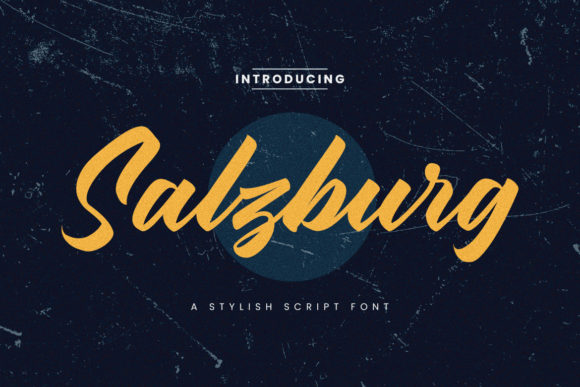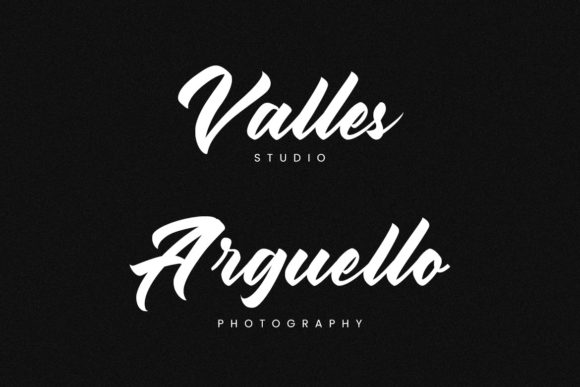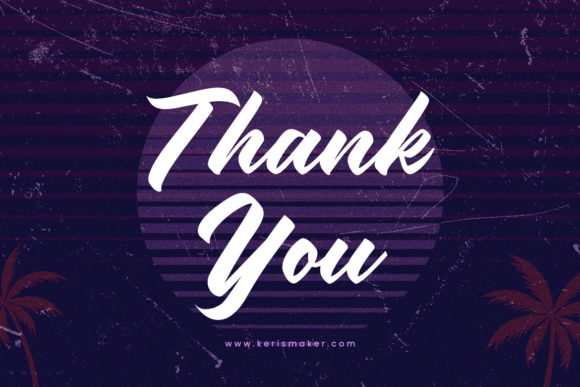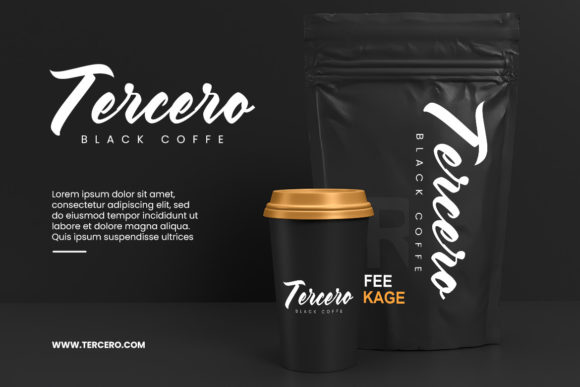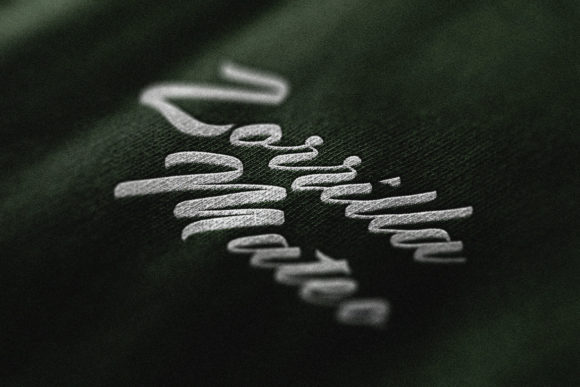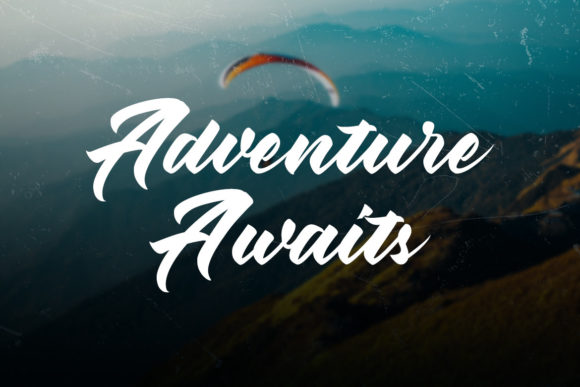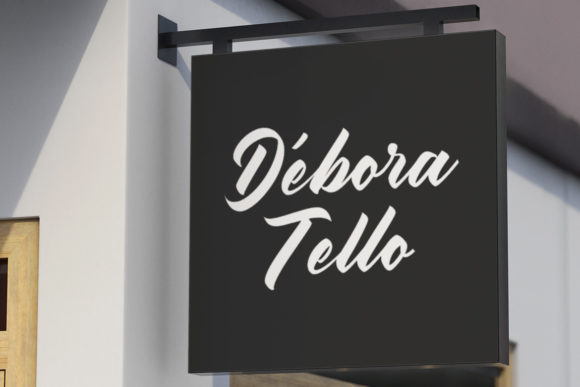
Salzburg Script Font
About Salzburg Script Font
Salzburg Script is a retro styled and flowing script font. It is great for logos, handwritten quotes, product packaging, header, poster, merchandise, social media & greeting cards.